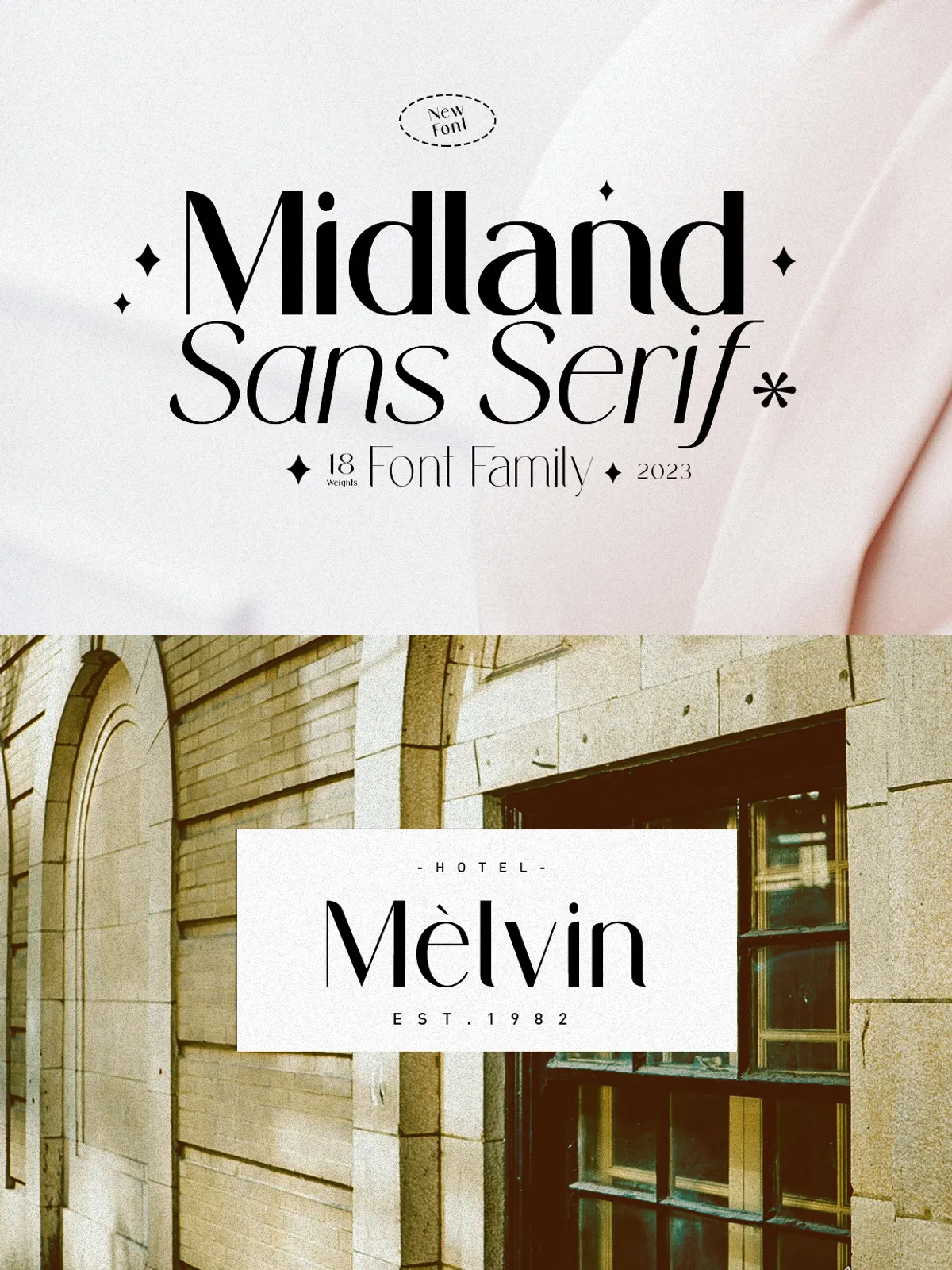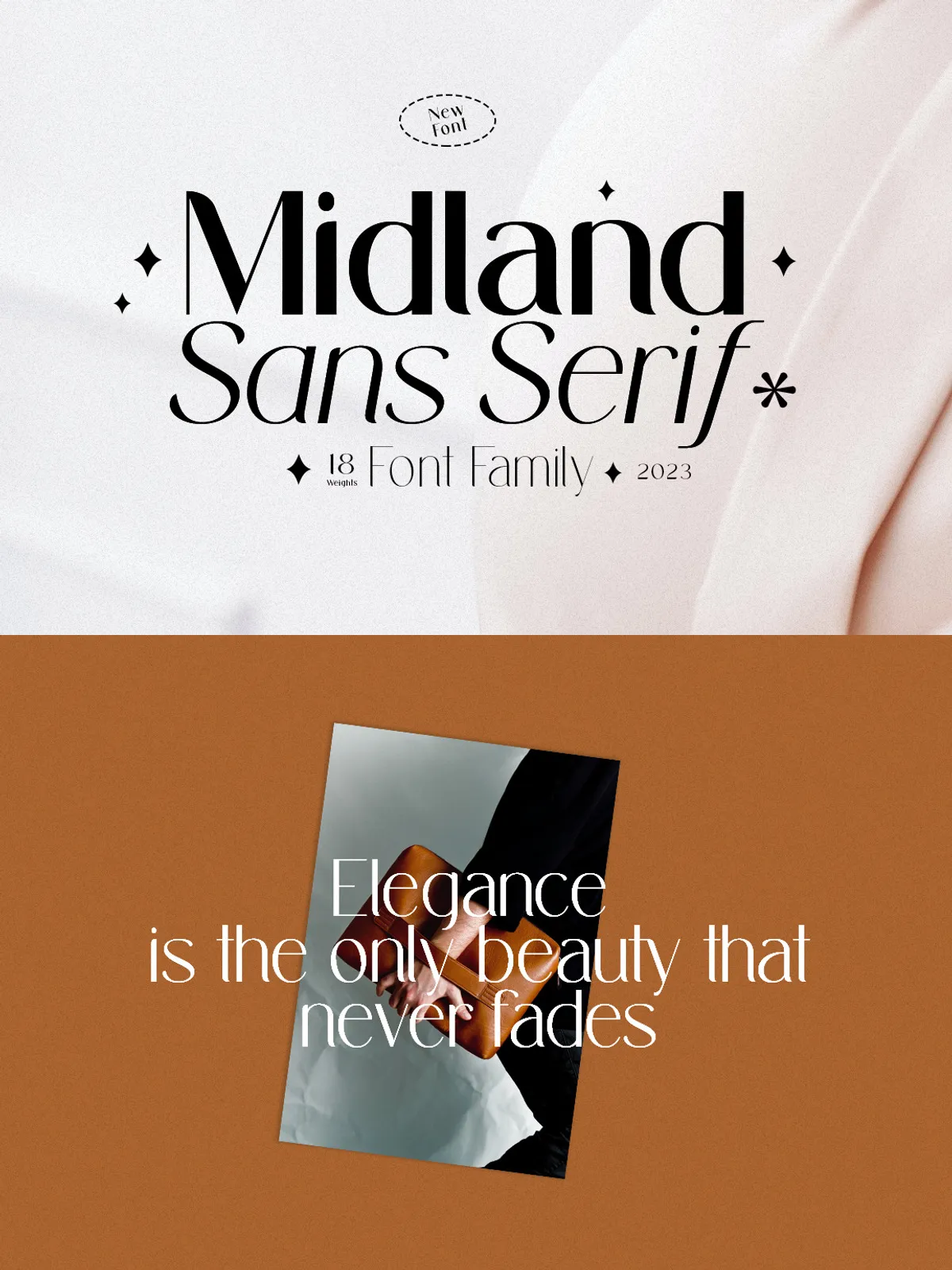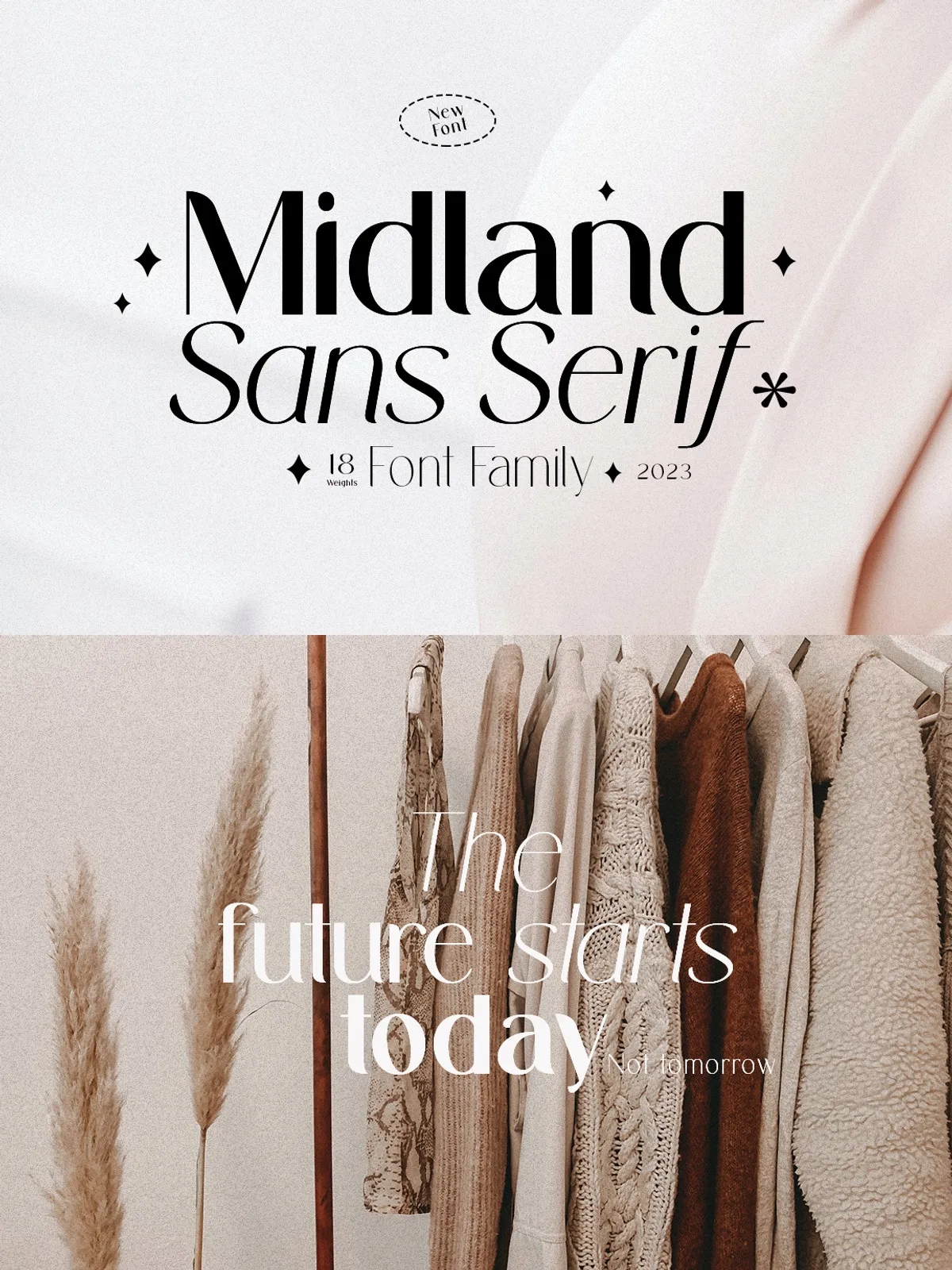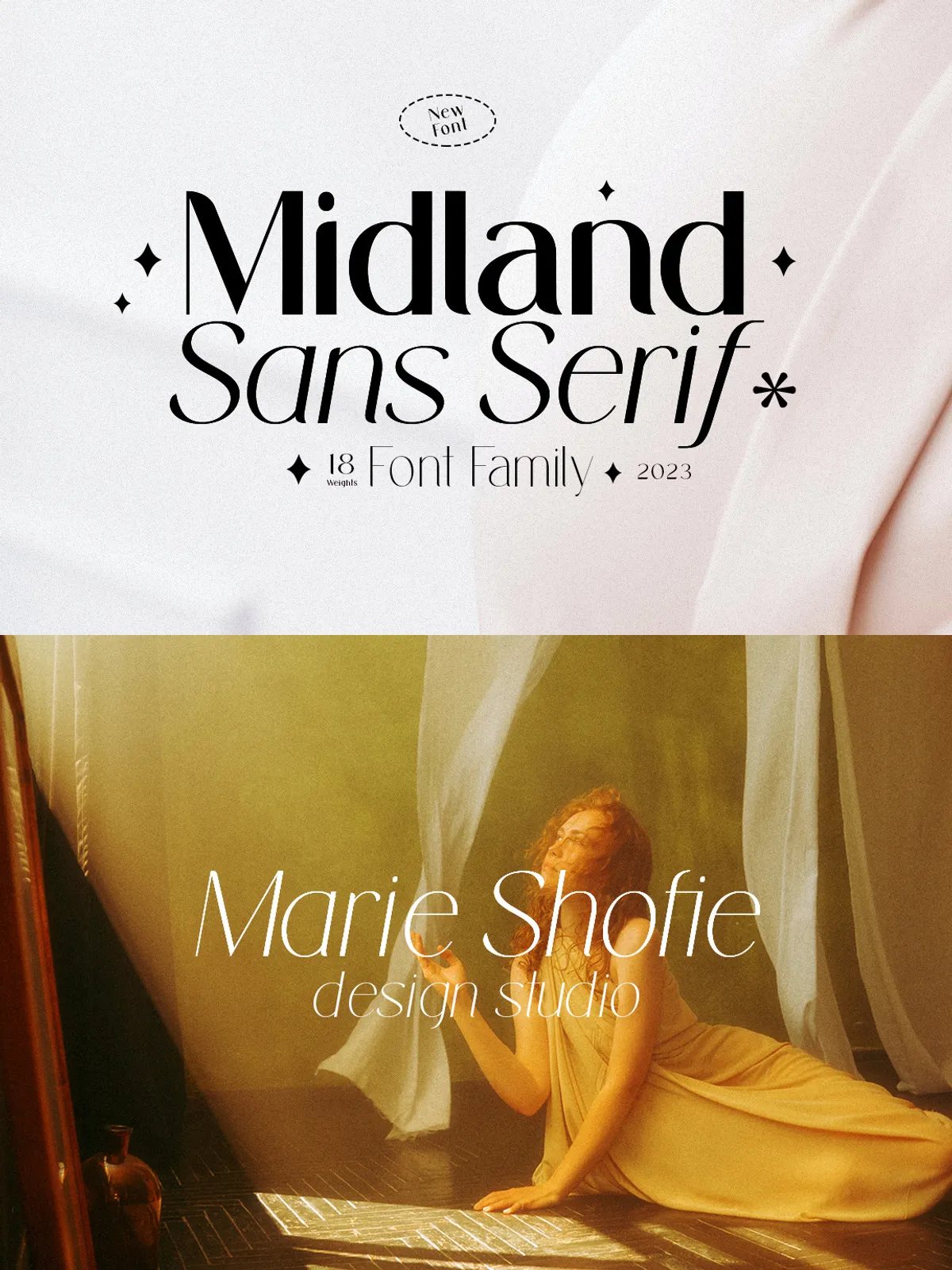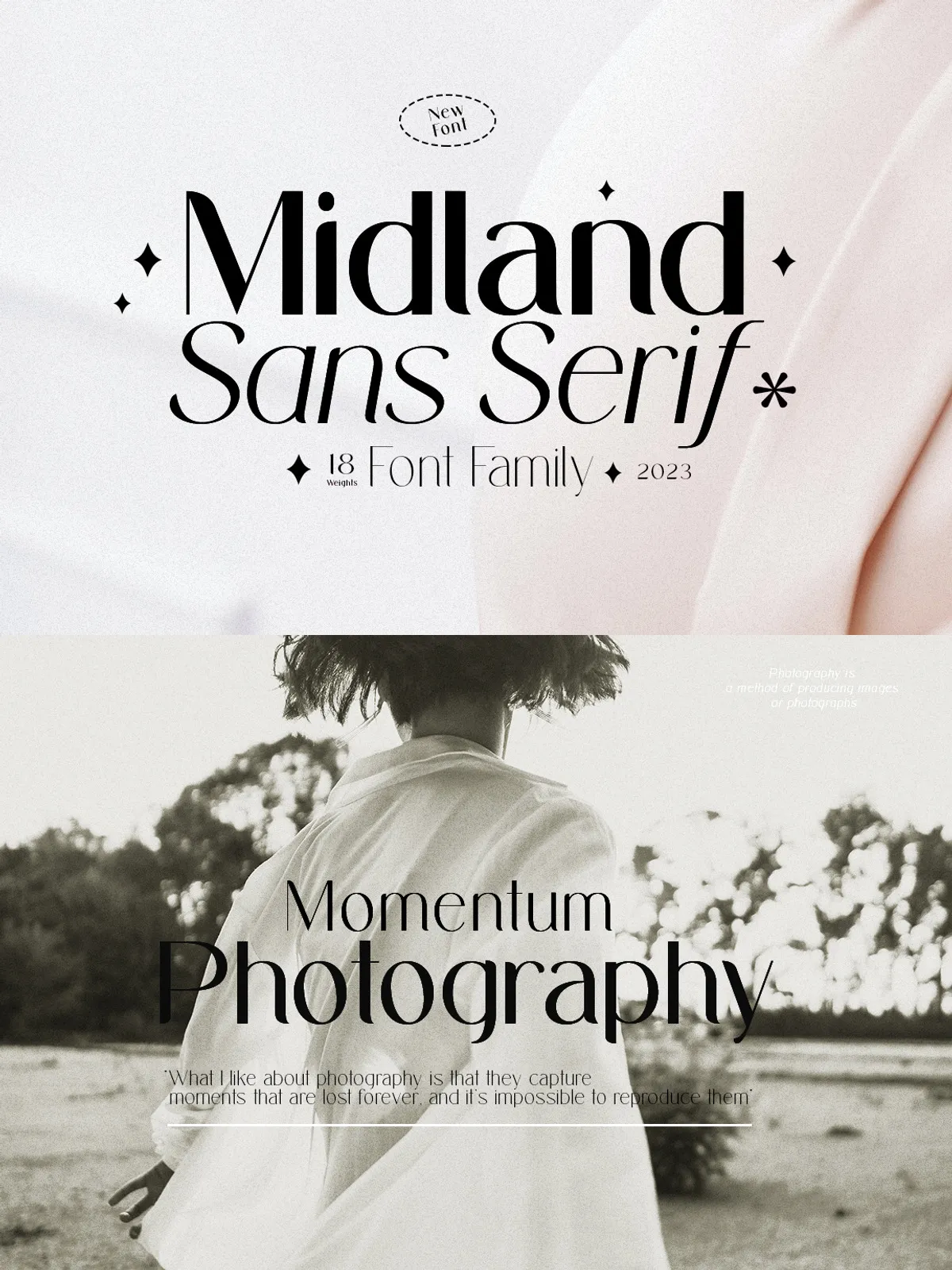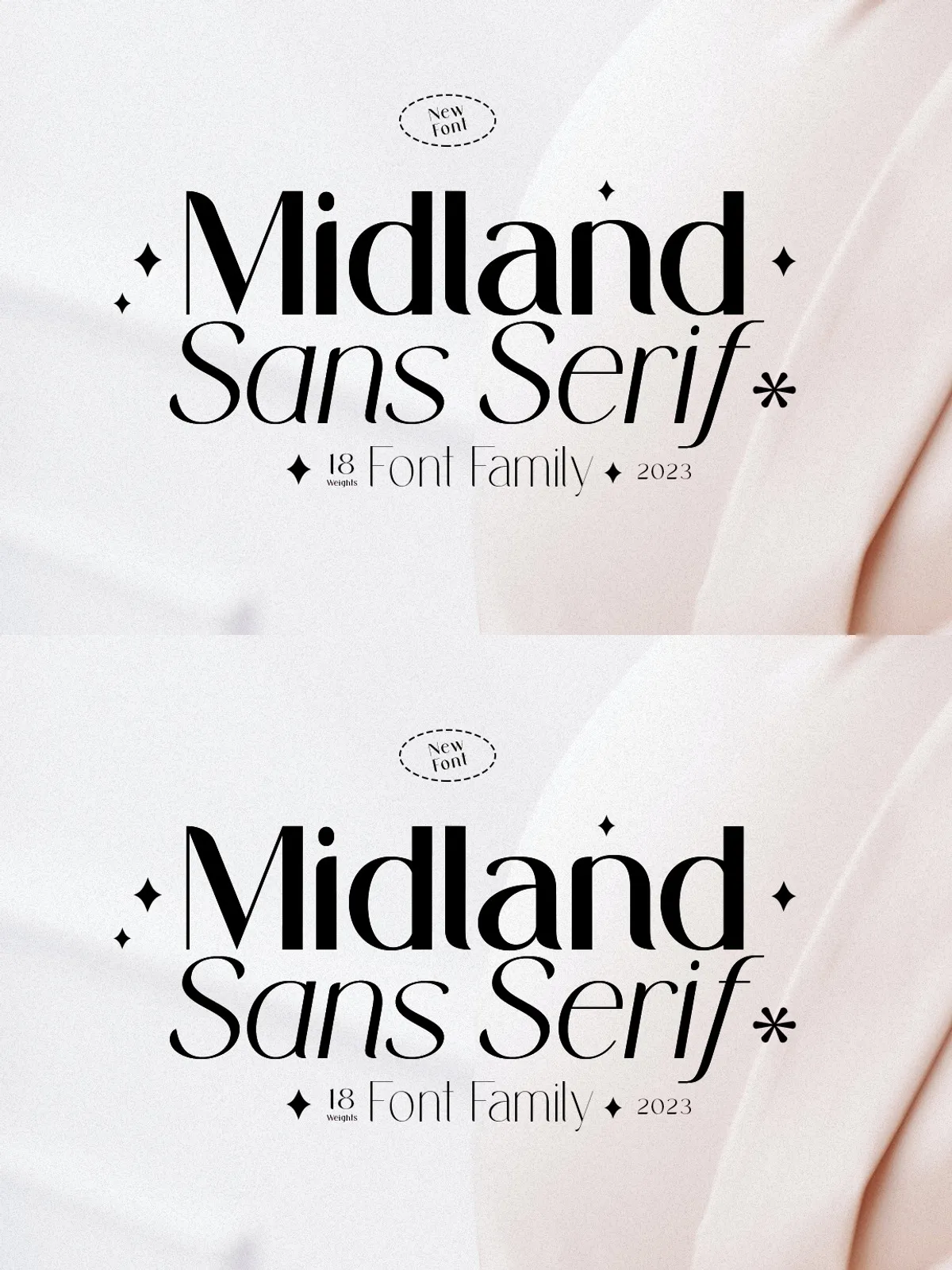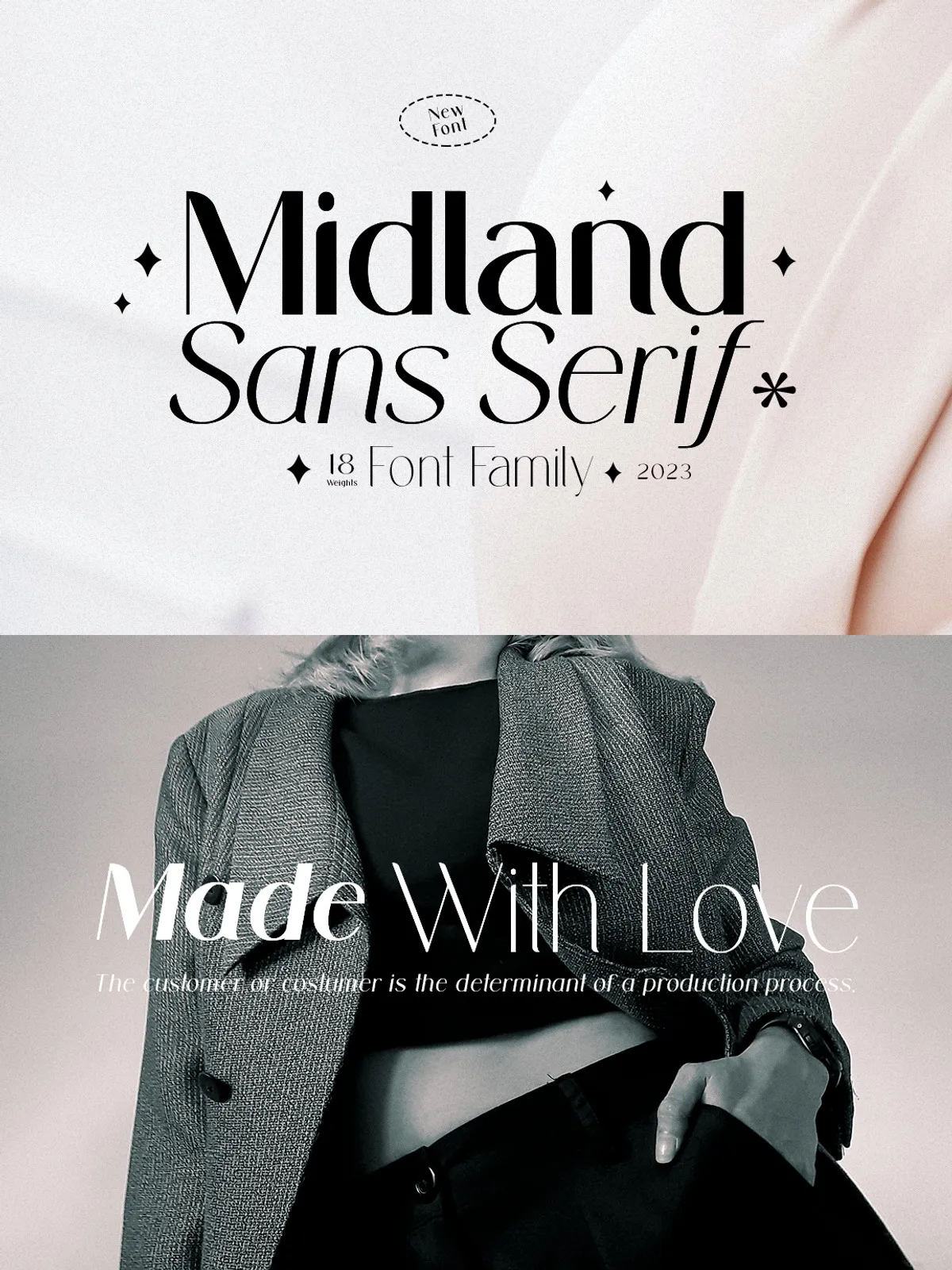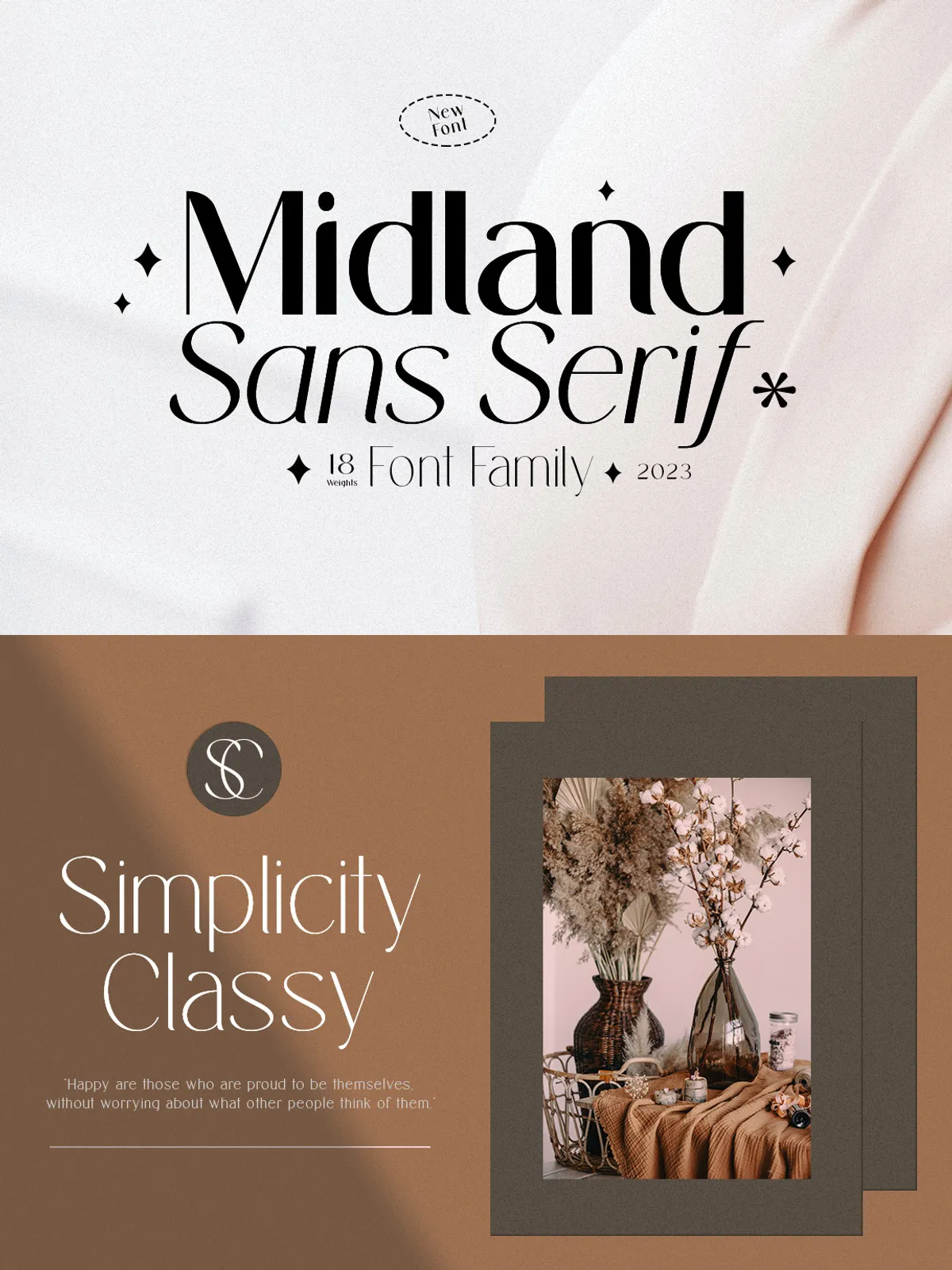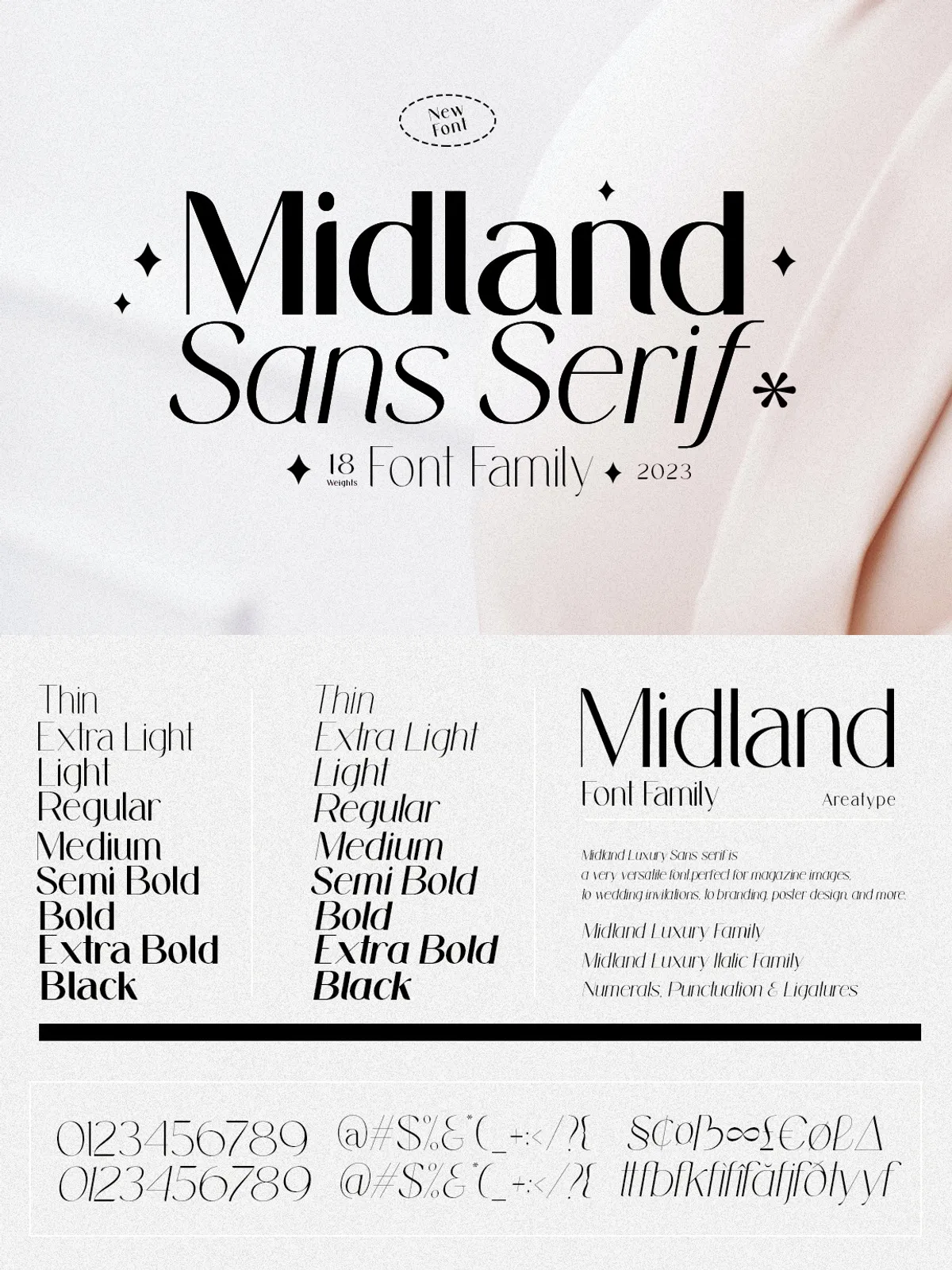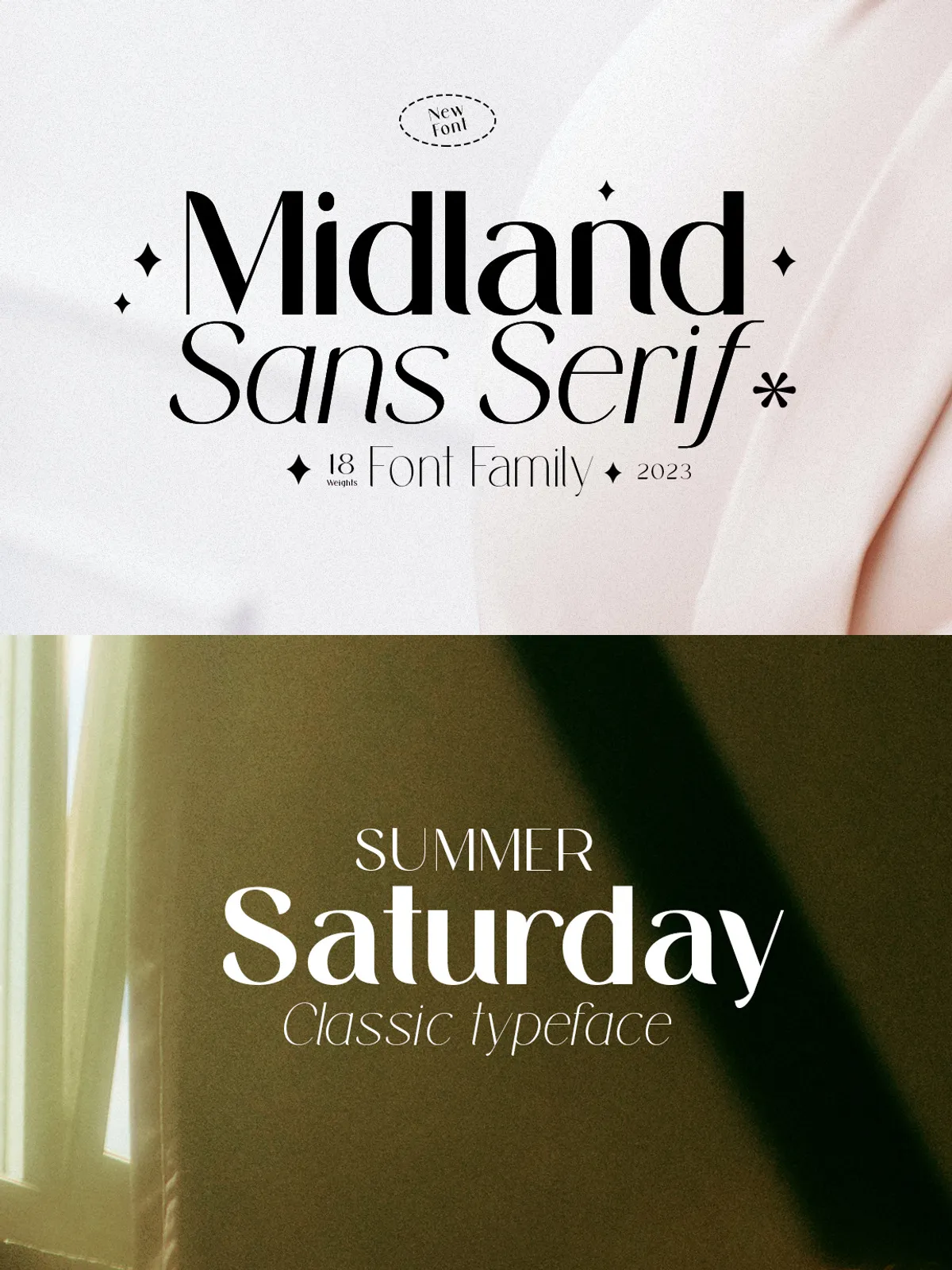
Midland Luxury Sans serif delivers a polished, modern aesthetic that adapts to a wide range of creative projects. Crafted with attention to proportion and clarity, this typeface combines refined letterforms with generous spacing to produce clean, confident typography for both display and body use. Designers will value Midland Luxury for its ability to elevate visual identities while maintaining readability in diverse contexts.
Features
Comprehensive Family and Italic Companion
The Midland Luxury package includes the primary family and a dedicated italic family, enabling flexible typographic hierarchy and expressive emphasis without sacrificing consistency. The italic variants expand expressive possibilities for invitations, pull quotes, and branding materials while remaining harmonized with the upright styles.
Complete Character Set
Midland Luxury supplies a full complement of numerals, punctuation, and ligatures. The comprehensive character set supports multilingual projects and professional typesetting requirements. Carefully designed numerals and punctuation improve alignment in editorial layouts and ensure balanced rhythm in both print and on-screen compositions.
Deliberate Letterforms for High Impact
The typeface balances elegant strokes with practical readability. Midland Luxury’s shapes emphasize legibility at a variety of sizes, from large hero headlines to compact photo captions. The design supports tight layouts and poster work where presence and clarity must co-exist.
Primary Use Cases
Branding and Identity
Apply Midland Luxury to logos, wordmarks, and corporate materials to convey sophistication and modernity. The typeface adapts to luxury brands, boutique services, and lifestyle labels that require visual refinement.
Editorial and Magazine Design
Use Midland Luxury for magazine headlines, captions, and pull quotes. Its structure supports strong editorial hierarchies while maintaining readable body copy when paired with a neutral text face.
Wedding Invitations and Event Collateral
Midland Luxury’s elegant italic family and ligature support make it an excellent choice for wedding suites, invitations, and printed event materials. The typeface provides a contemporary alternative to classic script while delivering formality and clarity.
Posters and Advertising
Rely on Midland Luxury for posters, signage, and advertising assets that demand immediate visual impact. The letterforms hold up at large sizes and retain clarity on digital displays and print.
Pairing and Best Practices
Typography Pairing
For extended text, pair Midland Luxury with a humanist serif or a neutral sans to balance personality with long-form legibility. Use Midland Luxury for headlines, logos, and UI labels while reserving softer, more readable faces for paragraphs.
Spacing and Hierarchy
Manage line-height and tracking to maintain rhythm: slightly increased line-height benefits dense editorial layouts, while tighter tracking enhances impact in display settings. Use the italic family sparingly for emphasis and decorative elements to preserve legibility.